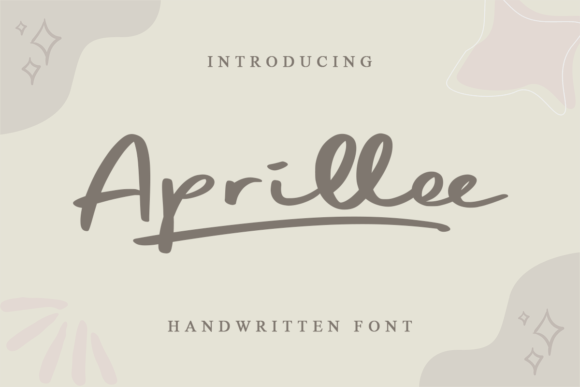
Unleashing Your Creativity with Aprillee Font
Enter the Aprillee Font, a stunning handwritten font inspired by real calligraphy. This beautiful font is perfect for designers who want to add a natural, personal touch to their work. With its PUA encoding, you can easily access all the cute glyphs and swashes that make Aprillee Font so unique.
Whether you’re a seasoned designer or just starting out, the Aprillee Font is a valuable addition to your toolkit. Its versatility and charm make it ideal for a wide range of projects, from invitations to quotes and everything in between.
- Unique Characteristics: This font family includes multiple styles, including regular, italic, bold, and bold italic, making it versatile for various design applications.
- Font Style: Script, Calligraphy
Aprillee Font Review
Aprillee Font is an elegant script font that can add a touch of sophistication to your designs. ✨ The rounded edges and flowing lines create a sense of fluidity that makes it perfect for creative projects.
The font has a wide range of features that make it versatile. ✨ Some of the highlights include:
- Beautiful, cursive lines that evoke a sense of elegance
- Compatible with a wide range of fonts and styles
- Perfect for titles, headings, and body text
However, there are some limitations to consider. ⚠️ Some of the drawbacks include:
- The font may be too ornate for some designs, making it difficult to read
- The lack of bold and italic styles may limit its use in certain situations
- The font may not be suitable for small text sizes due to its delicate lines
Overall, Aprillee Font is a beautiful script font that can add a touch of elegance to your designs. However, it may not be suitable for every project due to its limitations. With careful use, it can be a valuable addition to your font collection.
Use Aprillee font for creative projects, such as invitations, posters, and social media graphics. This font is perfect for adding a touch of elegance and sophistication to your designs. Experiment with different font sizes, colors, and combinations to achieve unique and eye-catching results.
Aprillee font is suitable for a variety of projects, including:
- Event promotions and posters
- Social media graphics and posts
Great Vibes Font is a modern, elegant script font suitable for invitations, wedding stationery, and other creative projects. It features a fluid, cursive style that exudes sophistication and romance.
Compared to Aprillee Font, Great Vibes Font has a more refined and polished look, making it ideal for high-end designs. Aprillee Font, on the other hand, has a more playful and whimsical feel.
Carolyna Pro Font is a beautiful, handwritten font that combines elegance and playfulness. It’s perfect for designing greeting cards, posters, and other creative projects that require a touch of personality.
Unlike Aprillee Font, Carolyna Pro Font has a more refined and sophisticated look, making it suitable for a wide range of designs, from formal to informal.
Alex Brush Font is a elegant, handwritten font that features a soft, brush-like texture. It’s ideal for designing invitations, greeting cards, and other creative projects that require a touch of warmth and personality.
Compared to Aprillee Font, Alex Brush Font has a more subtle and refined look, making it suitable for designs that require a more understated approach.
Ostrich Sans Font is a modern, sans-serif font that features a clean and minimalist design. It’s perfect for designing digital products, logos, and other projects that require a modern and sleek look.
Yes, Aprillee Font is designed to be highly customizable. It includes a wide range of OpenType features, such as ligatures, alternates, and swashes, which can be accessed through most design software. Additionally, the font’s design allows for easy modification and manipulation using font editing software.